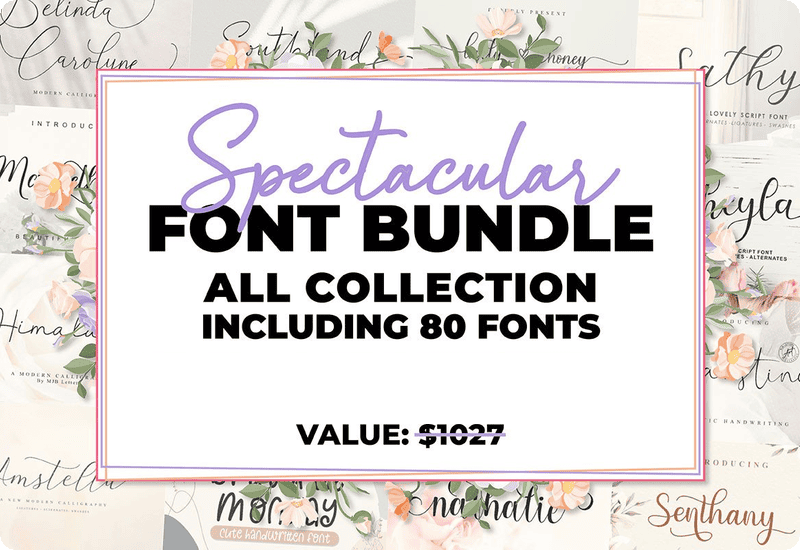
Introducing the Spectacular Font Bundle – a collection of 80 premium fonts carefully curated to unleash your creativity and elevate your design projects. This bundle offers a diverse range of fonts from various categories, making it perfect for any design endeavor.
Premium Fonts included in this bundle:
- Great Bold Sans Serif Font
- Belinda Carolyne Script & Handwritten Font
- Sindentosa Script & Handwritten Font
- Kastella Script & Handwritten Font
- Lovely Honey Script & Handwritten Font
- Southland Script & Handwritten Font
- Nightmare Pumpkins Display Font
- Happy Baby Display Fonts Font
- Beloved Angeline Duo Script & Handwritten Font
- Moonlight Sans Serif Font
- Photomark Signature Script & Handwritten Font
- Romantice Script & Handwritten Font
- Halimah Stories Script & Handwritten Font
- Honeylove Script & Handwritten Font
- Alyshen Sans Serif Font
- Southeast Avicenna Duo Script & Handwritten Font
- Lovely Honey Script & Handwritten Font
- Mathline Script & Handwritten Font
- Brightside Font Corsivi Font
- Villanesia Sans Serif Font
- Magnolia Script & Handwritten Font
- Rightland Script & Handwritten Font
- Sweeter Sandwich Display Font
- Morning Lovening Display Font
- Nathalie Script & Handwritten Font
- Valent Lovey Script & Handwritten Font
- Andalusia Script & Handwritten Font
- Senthany Script & Handwritten Font
- The Good Food Script & Handwritten Font
- Definite Soul Czcionki Szeryfowe Czcionka
- Amstella Script & Handwritten Font
- Klamber Satisfaction Script & Handwritten Font
- Himalaya Script & Handwritten Font
- Javanese Neu Sans Serif Font
- Sayidah Script & Handwritten Font
- Hello Angeline Script & Handwritten Font
- Love History Script & Handwritten Font
- Margetha Script & Handwritten Font
- Angelline Script & Handwritten Font
- Tinny Hurry Script & Handwritten Font
- Shutterland Script & Handwritten Font
- Brightline Script & Handwritten Font
- Belisha Script & Handwritten Font
- Ajieb Script & Handwritten Font
- Geishela Script Script & Handwritten Font
- Hello Darling Script & Handwritten Font
- Noorlita Script & Handwritten Font
- Belryna Script & Handwritten Font
- Empathy Script & Handwritten Font
- Snowy Day Script & Handwritten Font
- Luxurossa Serif Font
- Sehaty Script & Handwritten Font
- Chives Script & Handwritten Font
- Lovely Carlyna Script & Handwritten Font
- Joyland Marking Display Font
- Cattelyna Script & Handwritten Font
- Alymhela Script & Handwritten Font
- Naturallus Script & Handwritten Font
- Keysha Script & Handwritten Font
- Palladise Script & Handwritten Font
- Summer Vibes Script & Handwritten Font
- Gabriella Script & Handwritten Font
- Honey Flower Script & Handwritten Font
- Millano Script Script & Handwritten Font
- Beloving Script & Handwritten Font
- Avicenna Sans Serif Font
- Nalytha Script Script & Handwritten Font
- Smile of Cinderella Script & Handwritten Font
- Beauty Nayshilla Duo Script & Handwritten Font
- Maryland Serif Font
- Rotterdam Signature Script & Handwritten Font
- Sathyn Script & Handwritten Font
- Grateful Monday Script & Handwritten Font
- Adhellita Script & Handwritten Font
- Sheyla Script & Handwritten Font
- Belarose Script & Handwritten Font
- Greatheart Script & Handwritten Font
- Nourah Script Script & Handwritten Font
- Delight Script & Handwritten Font
- Rolanstine Script & Handwritten Font
Diverse Selection of Elegant Fonts
With the Spectacular Font Bundle, you gain access to an exceptional selection of fonts, each with its own unique style and personality. Whether you’re working on logos, branding, invitations, web design, or any other creative project, these fonts will add that touch of elegance and professionalism that sets your work apart.
Standout Fonts for Bold Statements
Among the fonts included in this bundle, you’ll find the Great Bold Sans Serif Font, which boasts a strong and commanding presence, perfect for making bold statements. The Belinda Carolyne Script & Handwritten Font exudes a sense of charm and delicacy, while the Sindentosa Script & Handwritten Font adds a touch of whimsy and playfulness to your designs.
Charm and Delicacy in Every Stroke
Looking for something more refined and elegant? The Kastella Script & Handwritten Font will captivate with its sophisticated flourishes. Meanwhile, the Nightmare Pumpkins Display Font injects a dose of spookiness and mystery, making it ideal for Halloween-themed projects.
Fonts for Limitless Design Possibilities